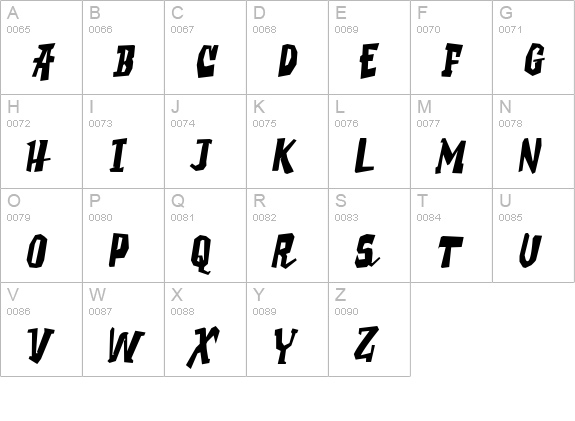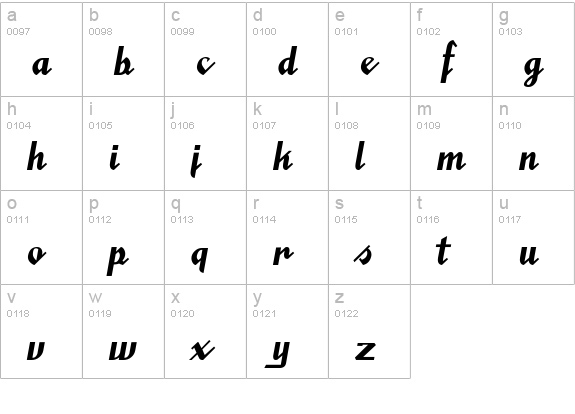
Introducing SaucyMillionaire, a font that exudes elegance, sophistication, and a touch of playful charm. This typeface is the epitome of luxury, with its carefully crafted curves, stylish serifs, and exquisite letterforms. SaucyMillionaire is designed to make a statement and captivate your audience, whether it's used for branding, packaging, invitations, or any other design project that demands attention. What sets SaucyMillionaire apart is not only its stunning aesthetic but also its accessibility. It is freely available to download at FontsMarket.com, allowing designers and creatives from all walks of life to harness its power and elevate their work. Gone are the days of compromising on quality due to budget constraints, as SaucyMillionaire offers a high-end look without the hefty price tag. This font is a true game-changer, combining timeless elegance with modern versatility. Its wide range of weights and styles ensures that there is a SaucyMillionaire variant for every project, whether you're aiming for a bold and impactful headline or a delicate and refined body text. The attention to detail in every glyph is evident, as each character seamlessly flows into the next, creating a harmonious and visually pleasing composition. The versatility of SaucyMillionaire knows no bounds. It effortlessly adapts to various design styles, from classic and traditional to contemporary and edgy. Its clean and legible design makes it suitable for both print and digital applications, guaranteeing a flawless reading experience. With SaucyMillionaire, you have the power to transform your designs into works of art. Its distinct personality and refined aesthetics will leave a lasting impression on your audience, evoking a sense of luxury and refinement. So why wait? Experience the unparalleled beauty of SaucyMillionaire today, and let your creativity soar. Download it for free at FontsMarket.com and unlock a world of possibilities for your next design masterpiece.